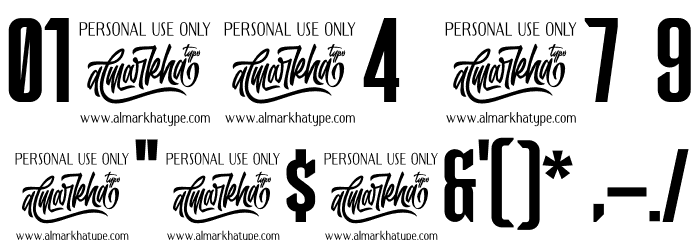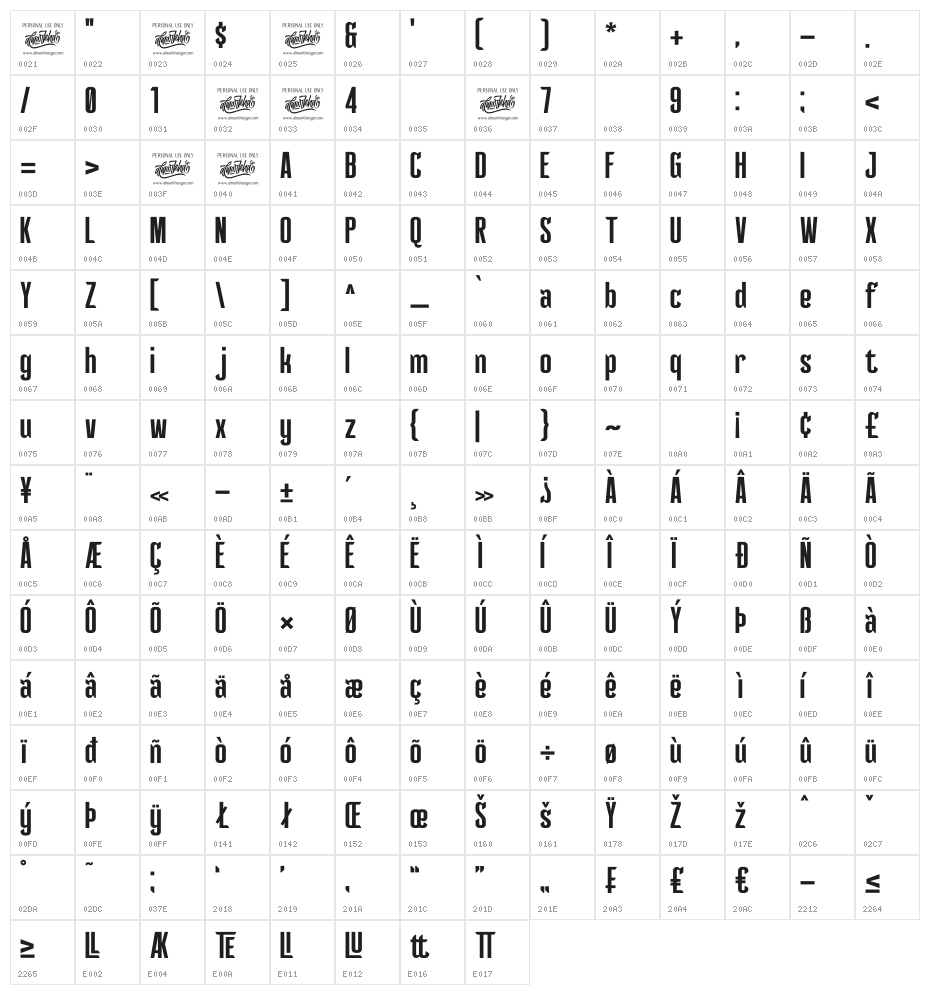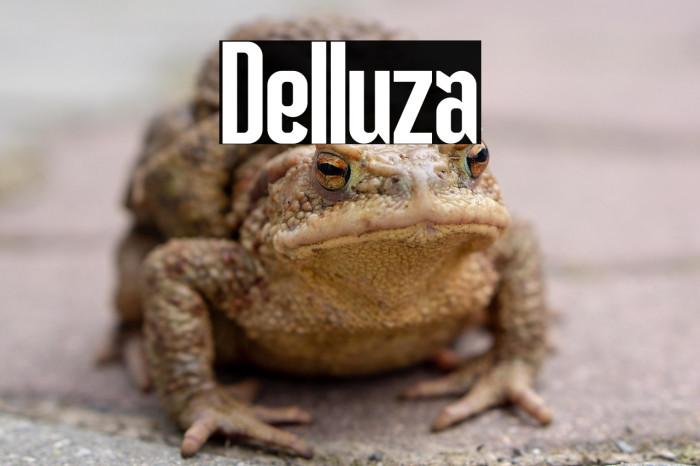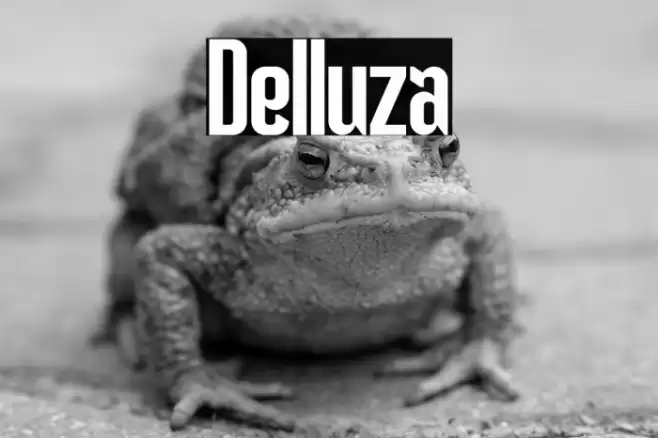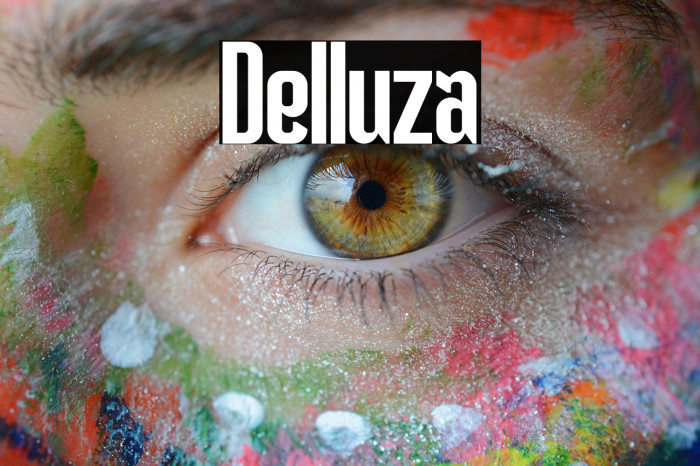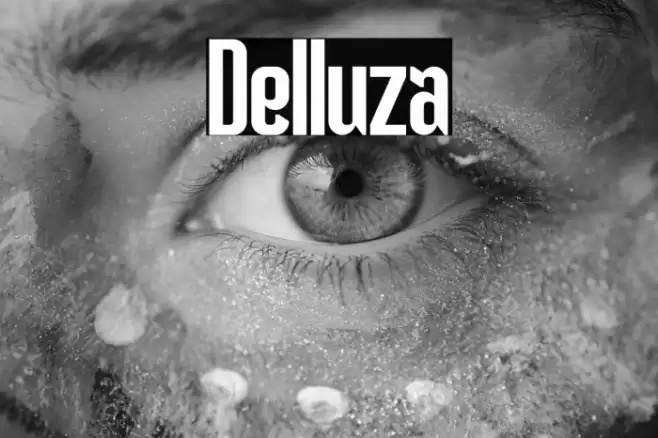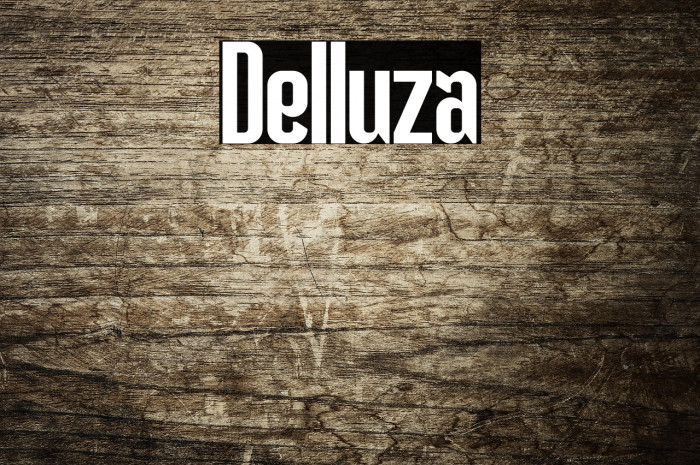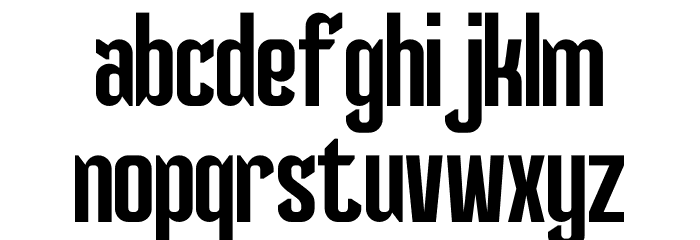
Delluza Font
Delluza Description
This font features a bold and modern design with a strong presence. The uppercase letters are tall and condensed, giving a striking and impactful look. The lowercase letters maintain a consistent style, with rounded edges that add a touch of softness to the overall boldness. The numbers are clear and well-defined, matching the assertive style of the alphabet. Special characters are included, providing versatility for various design needs. The font's clean lines and contemporary feel make it suitable for a wide range of applications, from branding to editorial design.
| Proposed Projects | Ideal for branding, headlines, posters, and editorial design projects. |